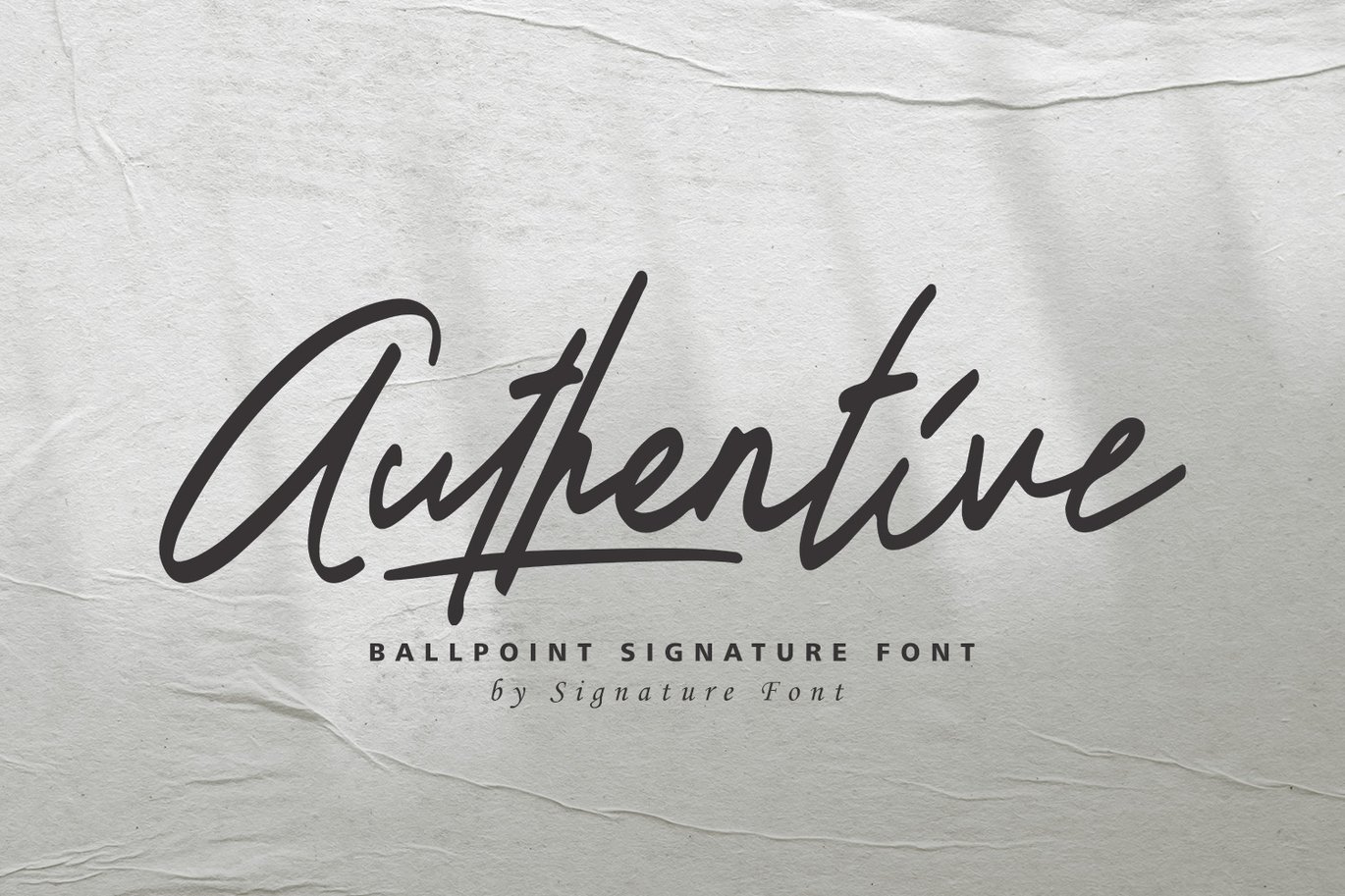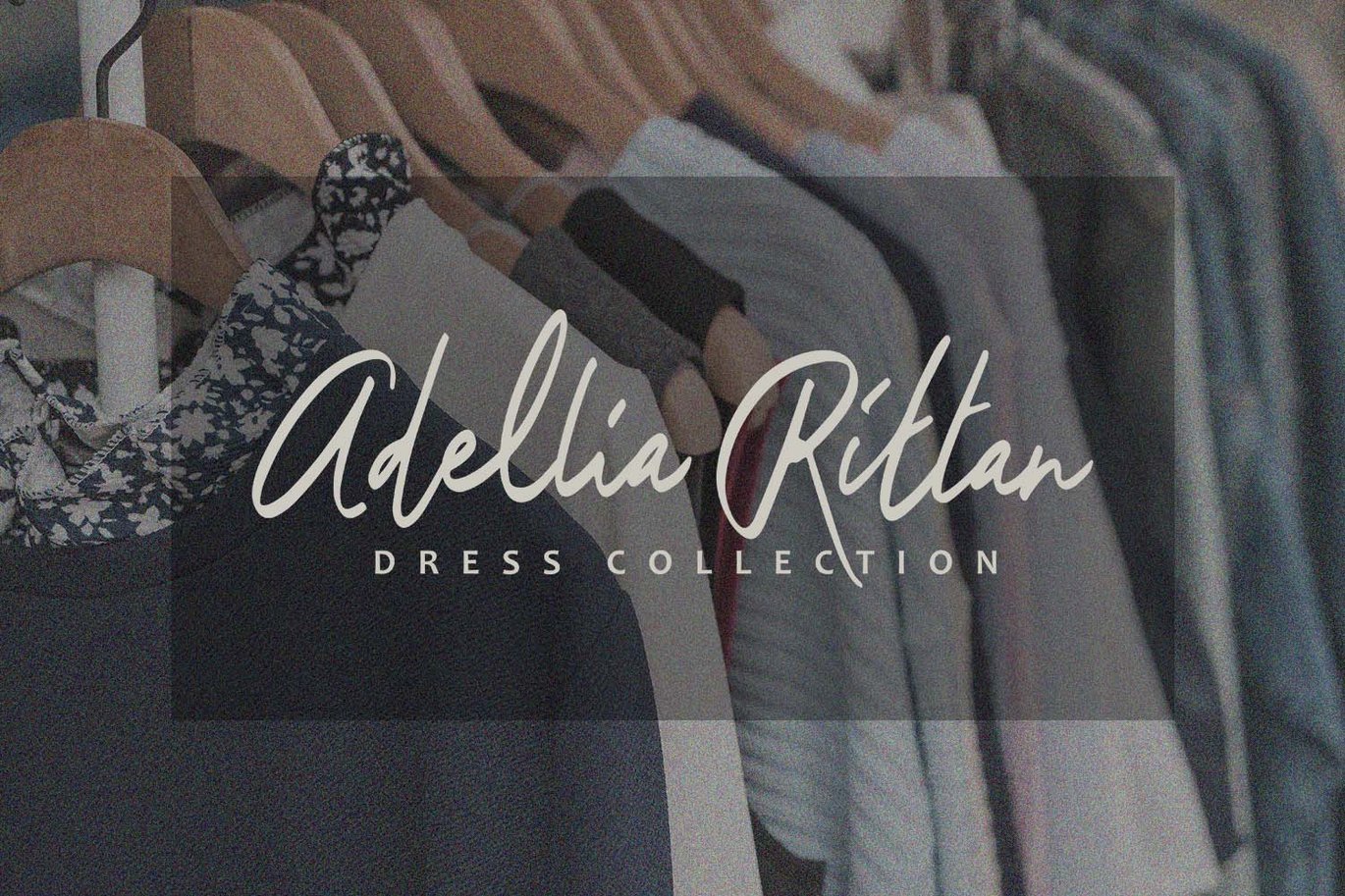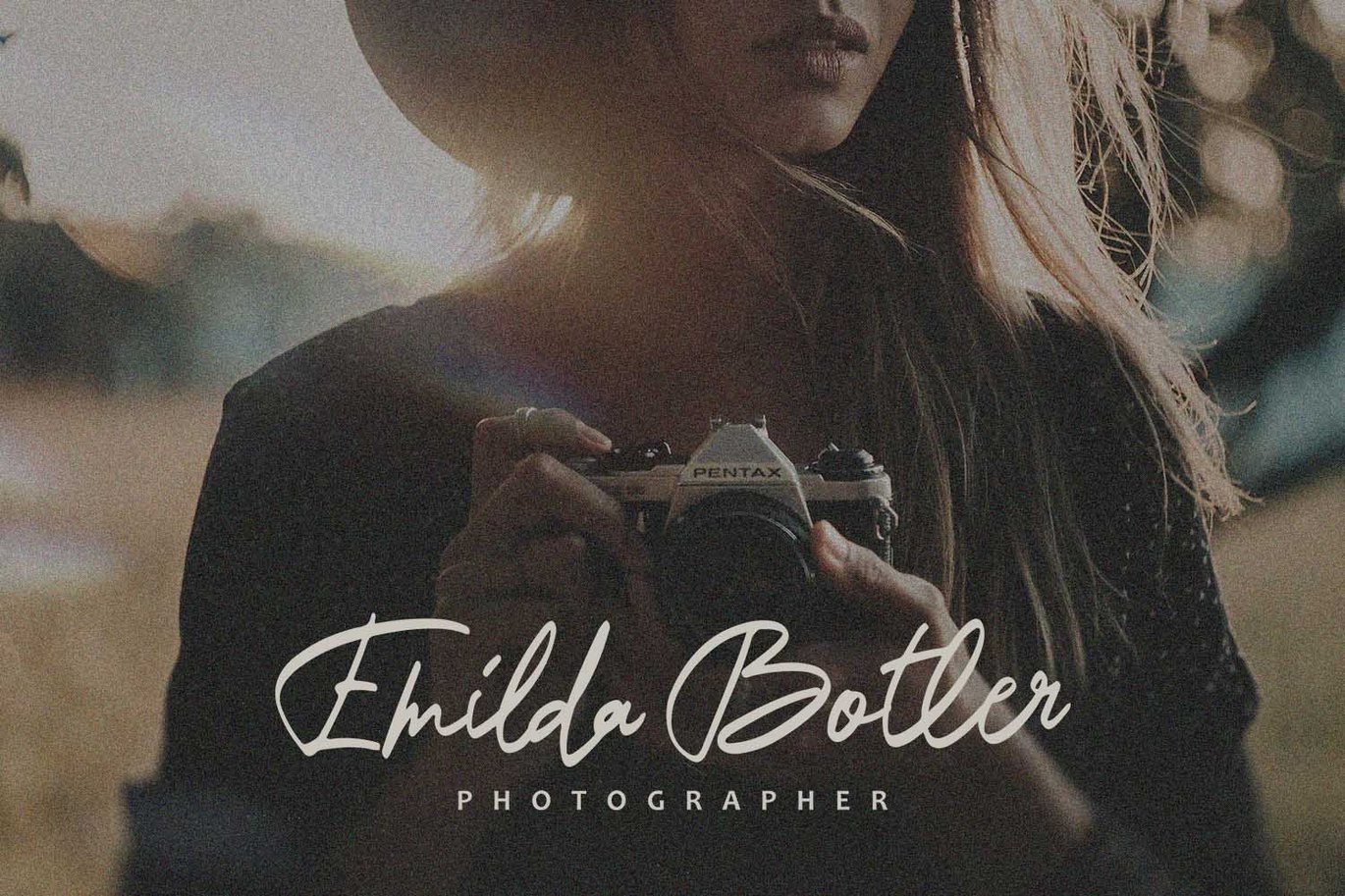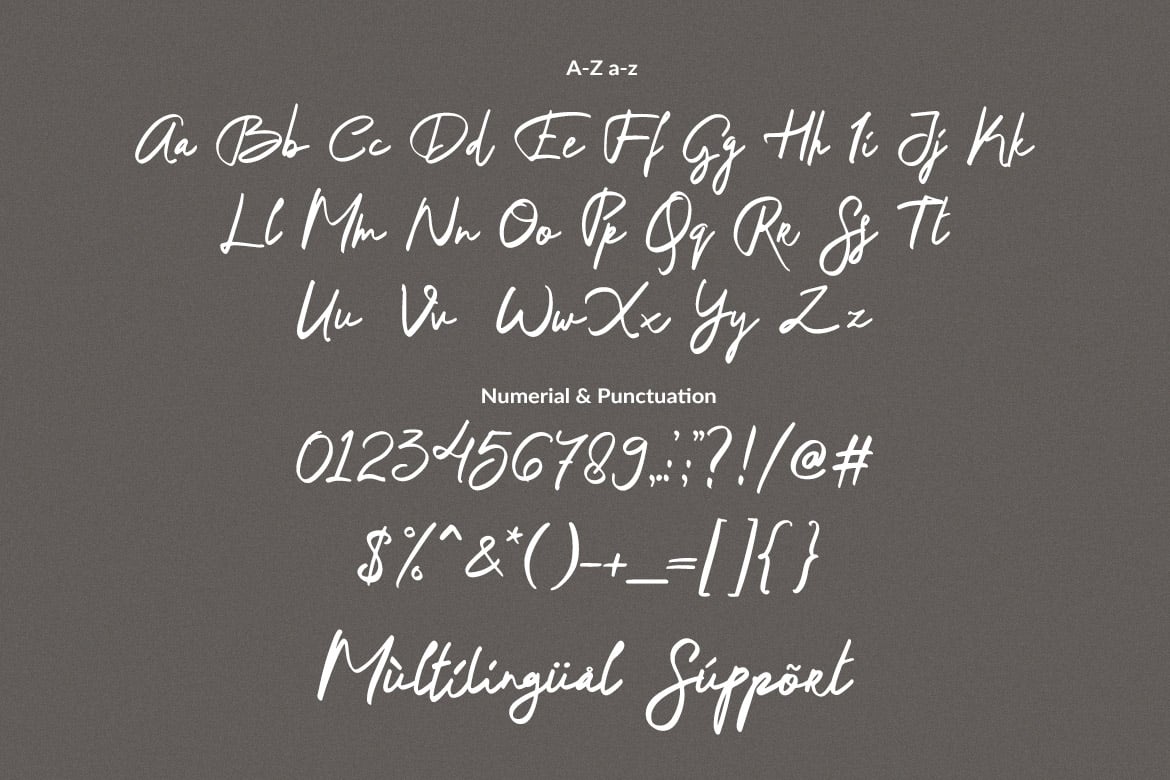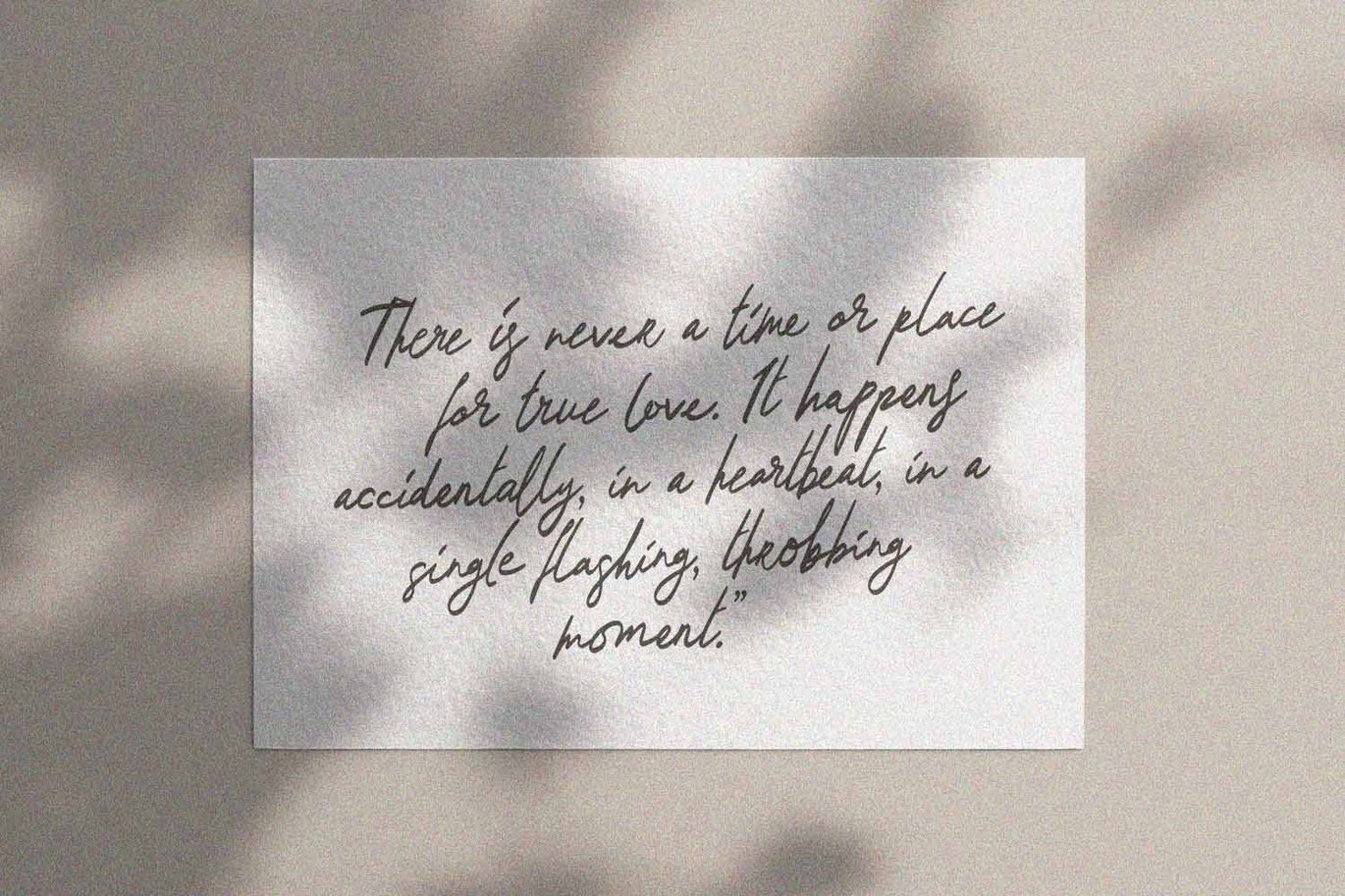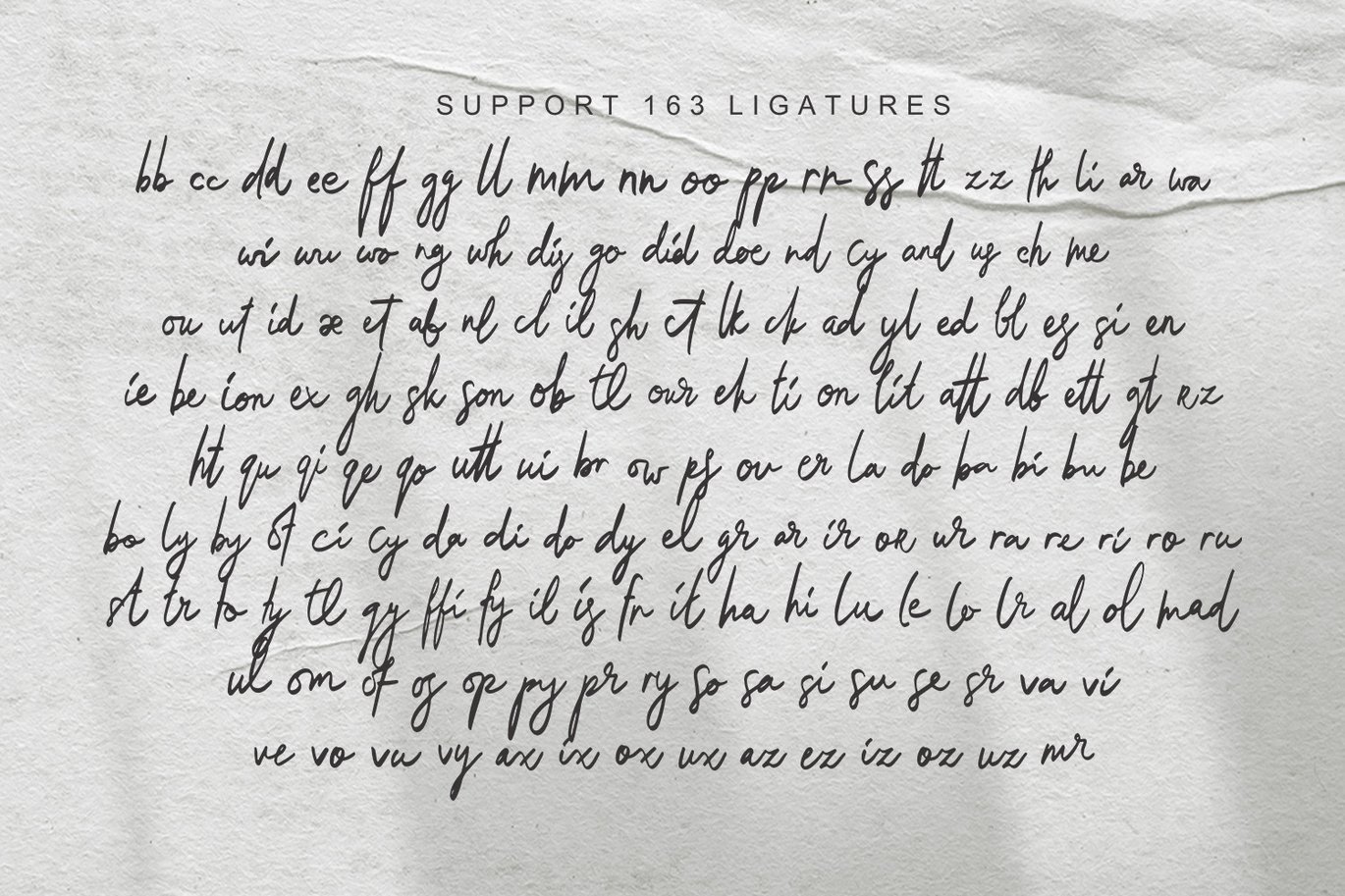
Authentive – Marker Font
Introducing the new “Authentive” font, a handwritten signature font. Made with Marker Pen.
For those of you who are needing a touch of clean handwritten signature, chic and modernity for your designs,
this font was created for you! Abu Dhabi was built with beautiful ligatures and alternate ending.